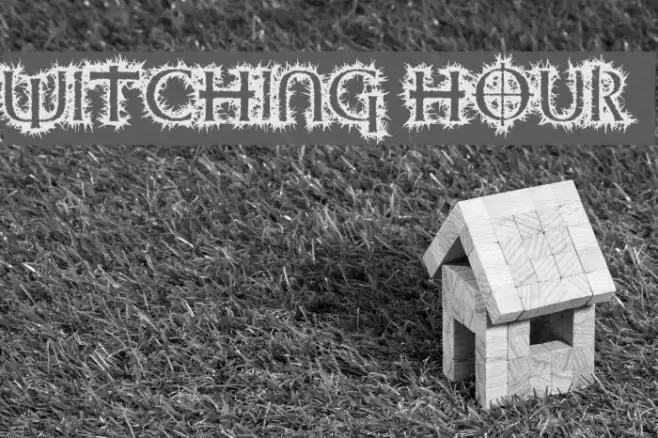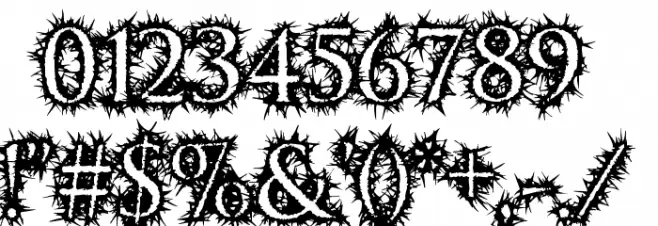
Witching Hour Font
Witching Hour Description
This font features a highly decorative and intricate design, reminiscent of thorny vines or barbed wire wrapping around each character. The letters are bold and dramatic, with sharp, jagged edges that give them a menacing and mysterious appearance. The style evokes a sense of the supernatural or gothic, making it ideal for themes related to horror, fantasy, or the occult. The uppercase and lowercase letters maintain a consistent style, with the same thorny embellishments. Numbers and special characters are equally detailed, ensuring a cohesive look across all text elements.
A thorny, gothic-style font with intricate, jagged edges from Uncategorized fonts.
- Proposed Projects: Perfect for Halloween-themed designs, horror movie posters, fantasy book covers, or any project requiring a dark, mysterious aesthetic.
- Overall Style: Gothic, Decorative
- Use Case: Headlines, Logos, Themed Events